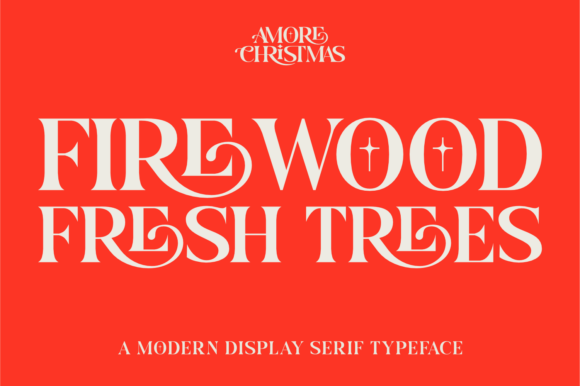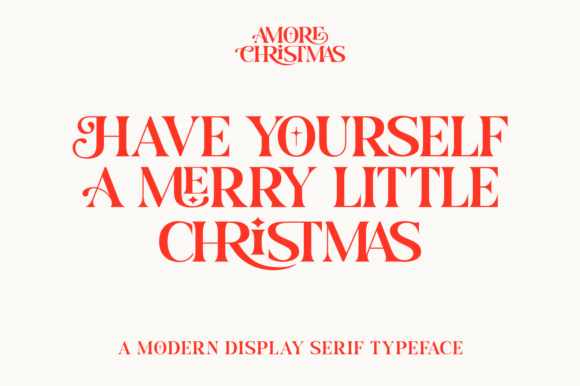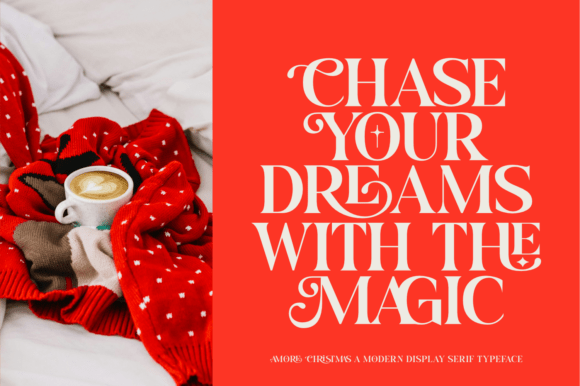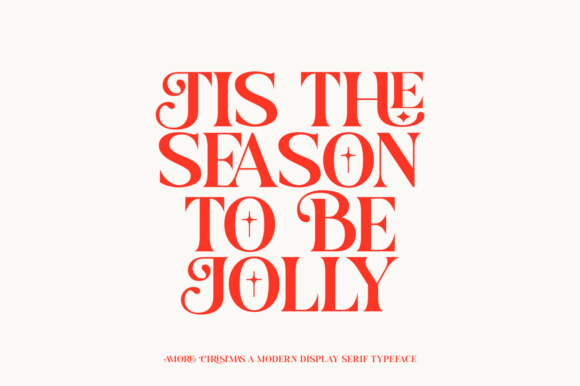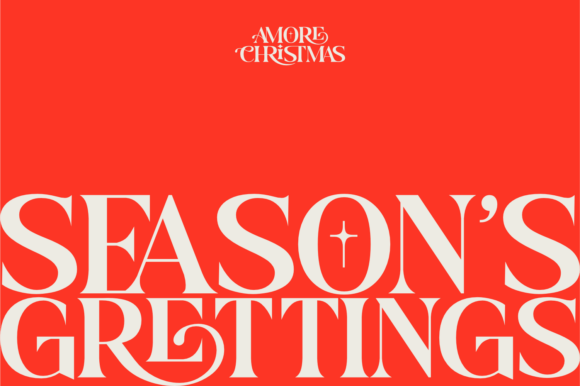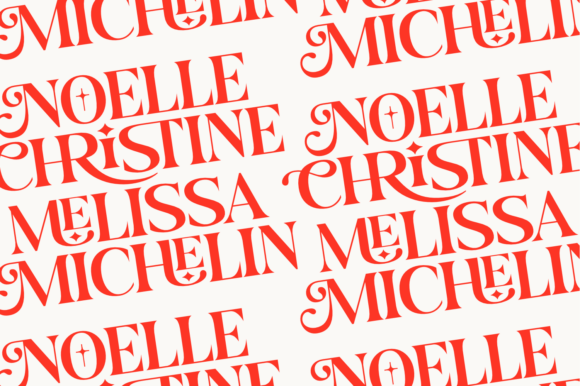
Unwrap the Magic of the Season with Amore Christmas Font
As the holiday season approaches, designers and crafters are on the lookout for the perfect typography to capture the essence of Christmas. Look no further than Amore Christmas, a stunning display serif font that embodies the warmth, joy, and festivity of the season. With its bold and eye-catching design, Amore Christmas is the ideal choice for creating high-impact headlines, vibrant seasonal promotions, and Christmas-themed menus that will leave a lasting impression.
The Essence of Holiday Cheer
Amore Christmas is more than just a font – it’s an experience. Its audacious design distills the essence of holiday cheer, transporting you and your audience to a world of warmth and jubilance. The font’s carefully crafted ligatures, graceful arcs, and inbuilt Yuletide decorations come together to create a truly immersive experience that will leave your audience feeling merry and bright.
Elevate Your Holiday Designs
Whether you’re a designer, crafter, or DIY enthusiast, Amore Christmas is the perfect addition to your holiday toolkit. This versatile font excels in a variety of applications, from:
- High-impact headlines that grab attention
- Vibrant seasonal promotions that drive sales
- Christmas-themed menus that add a touch of festivity
- Social media graphics that spread holiday cheer
- Packaging designs that stand out on store shelves
Unleash the Feel of Treasured Holiday Memories
Amore Christmas is more than just a font – it’s a way to evoke the feelings of warmth and nostalgia associated with the holiday season. By incorporating this font into your brand identity, you’ll create a sense of continuity and tradition that will resonate with your audience. Imagine wrapping your customers in a warm hug, transporting them to a place of comfort and joy, and making them feel like they’re part of something special. That’s what Amore Christmas can do for your brand.
Make Your Brand Shine with Amore Christmas
In a crowded marketplace, it’s hard to stand out. That’s why Amore Christmas is the perfect choice for brands looking to make a statement during the holiday season. With its bold and eye-catching design, this font will help your brand shine brightly, echoing the celebration of the season and leaving a lasting impression on your audience.
Key Features of Amore Christmas
- Audacious, display serif font design
- Awe-inspiring ligatures and graceful arcs
- Inbuilt Yuletide decorations for added festivity
- Perfect for high-impact headlines, seasonal promotions, and Christmas-themed menus
Get Ready to Immerse Yourself in the Festive Spirit
Amore Christmas is the perfect choice for designers and crafters looking to capture the essence of the holiday season. With its bold and eye-catching design, this font is sure to make your holiday designs shine. Whether you’re creating high-impact headlines, vibrant seasonal promotions, or Christmas-themed menus, Amore Christmas is the key to unlocking the magic of the season. So why wait? Download Amore Christmas today and get ready to spread holiday cheer like never before!